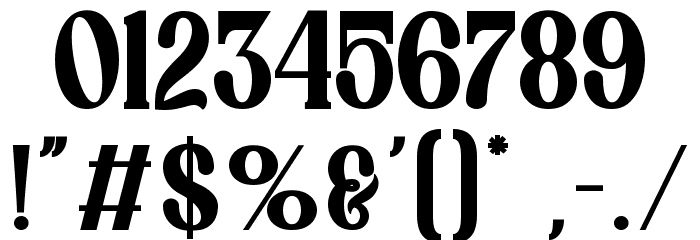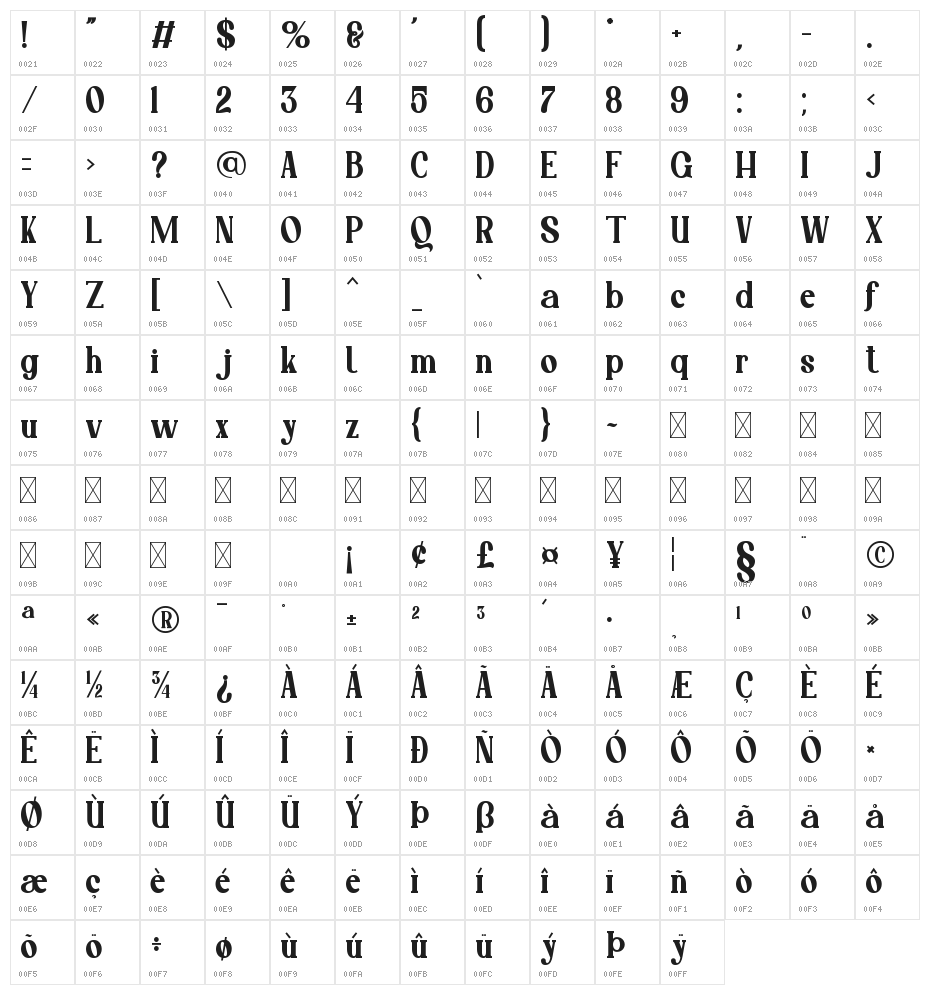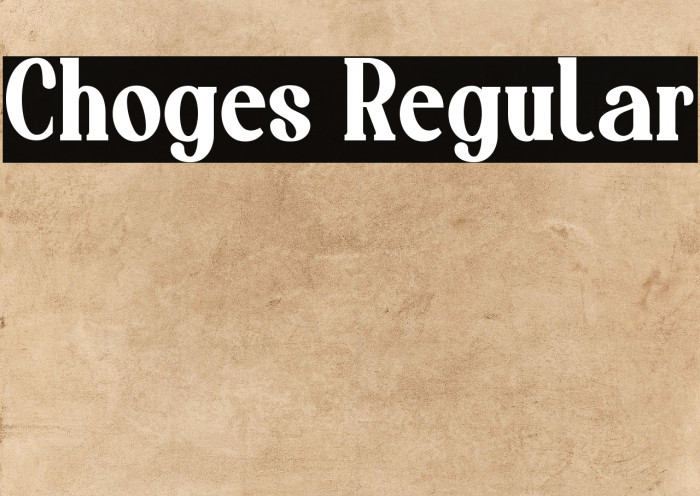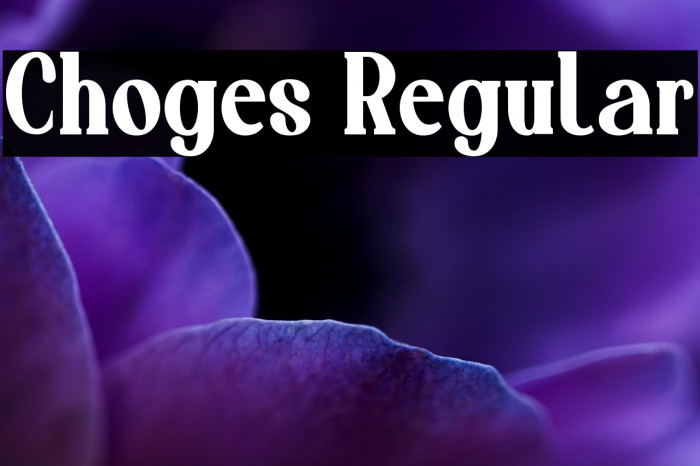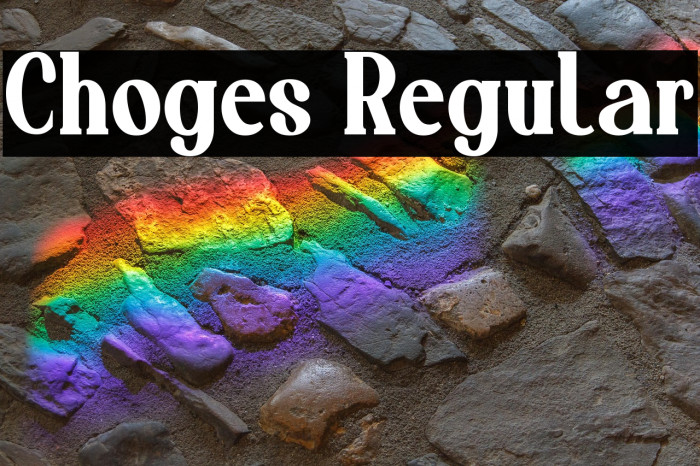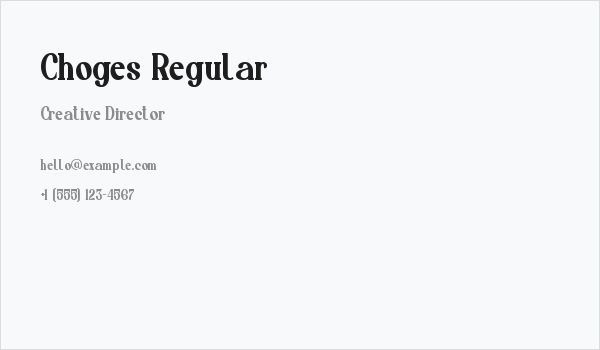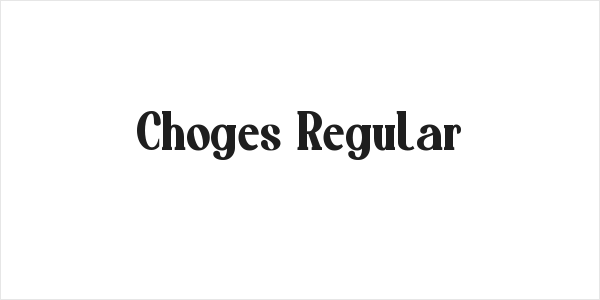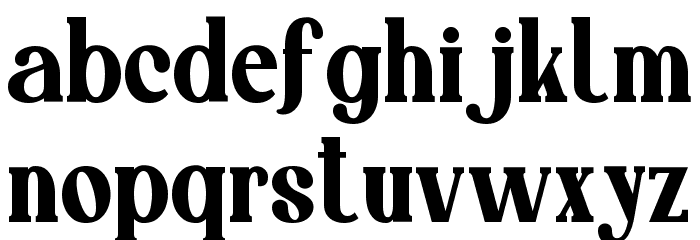
Choges Regular Font
Choges Regular Description
This font features a bold and striking serif design, characterized by its thick, prominent strokes and high contrast between thick and thin lines. The serifs are pronounced, giving the typeface a classic and authoritative appearance. The uppercase letters are tall and commanding, while the lowercase letters maintain a consistent style with slightly rounded edges, enhancing readability. Numbers are equally bold, ensuring they stand out in any context. The special characters are designed with the same attention to detail, making them cohesive with the rest of the font. Overall, the font exudes a sense of tradition and strength, making it suitable for impactful and formal applications.
| Use Case | Headlines, Logos, Editorial Design |
| Proposed Projects | Ideal for book covers, headlines, branding, and editorial design where a strong, traditional presence is desired. |